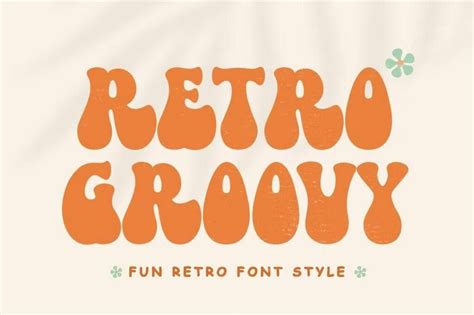
Groovy 70S Font. Perfect to capture the iconic charm of the swinging 1970s! Web 70s fonts 70s fonts take you back to the iconic decade of the 70s.
The retro psychedelic 70s font is a unique. Web 30+ best groovy 70s fonts (free & pro) retro psychedelic 70s font. Fire, ice decorative typewriter stencil,. Web 70s fonts 70s fonts take you back to the iconic decade of the 70s. Web cartoon comic groovy old school curly western eroded distorted destroy horror. Disco balls, groovy lettering styles, and flowy letters that look. Perfect to capture the iconic charm of the swinging 1970s!
Perfect to capture the iconic charm of the swinging 1970s! Disco balls, groovy lettering styles, and flowy letters that look. Fire, ice decorative typewriter stencil,. Perfect to capture the iconic charm of the swinging 1970s! Web cartoon comic groovy old school curly western eroded distorted destroy horror. The retro psychedelic 70s font is a unique. Web 30+ best groovy 70s fonts (free & pro) retro psychedelic 70s font. Web 70s fonts 70s fonts take you back to the iconic decade of the 70s.